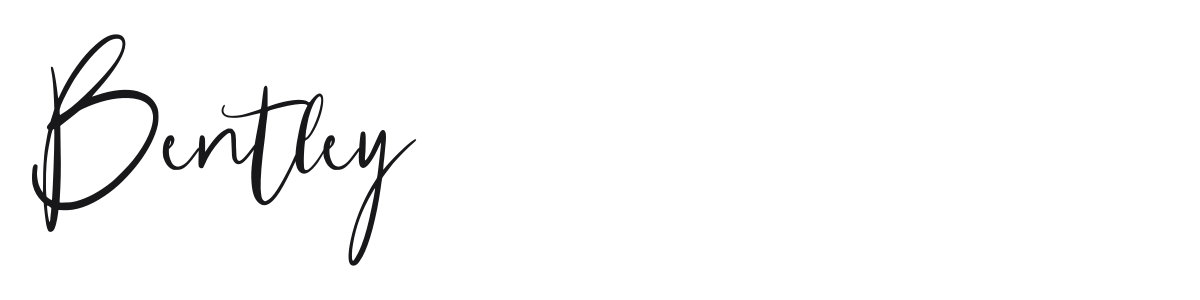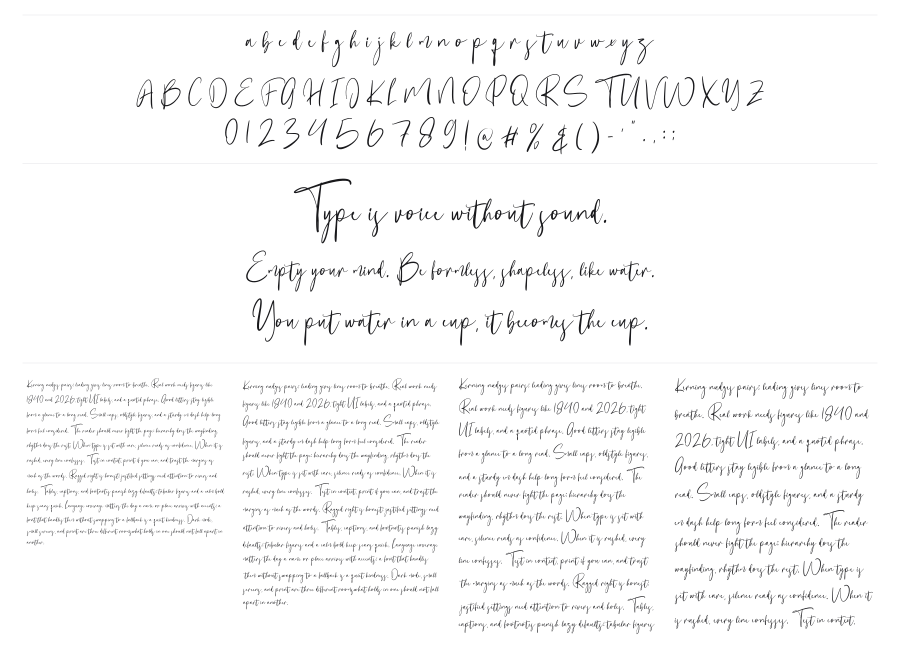
Bentley
Bentley is a flowing casual script with light, looping strokes and a naturally bouncy baseline. The generous descenders and interlinking letters give it an effortless handwritten quality that reads as romantic and approachable. It works confidently at large sizes for logos, wedding stationery, and lifestyle branding.